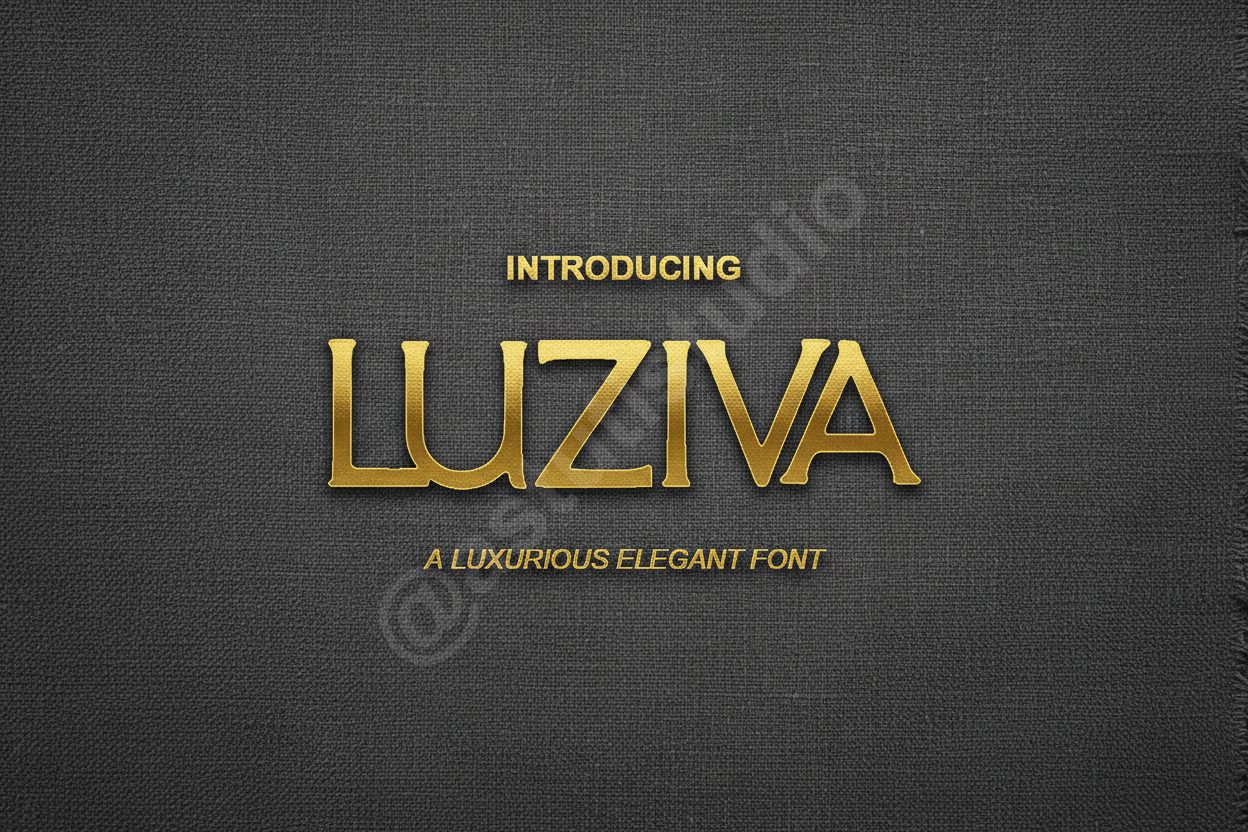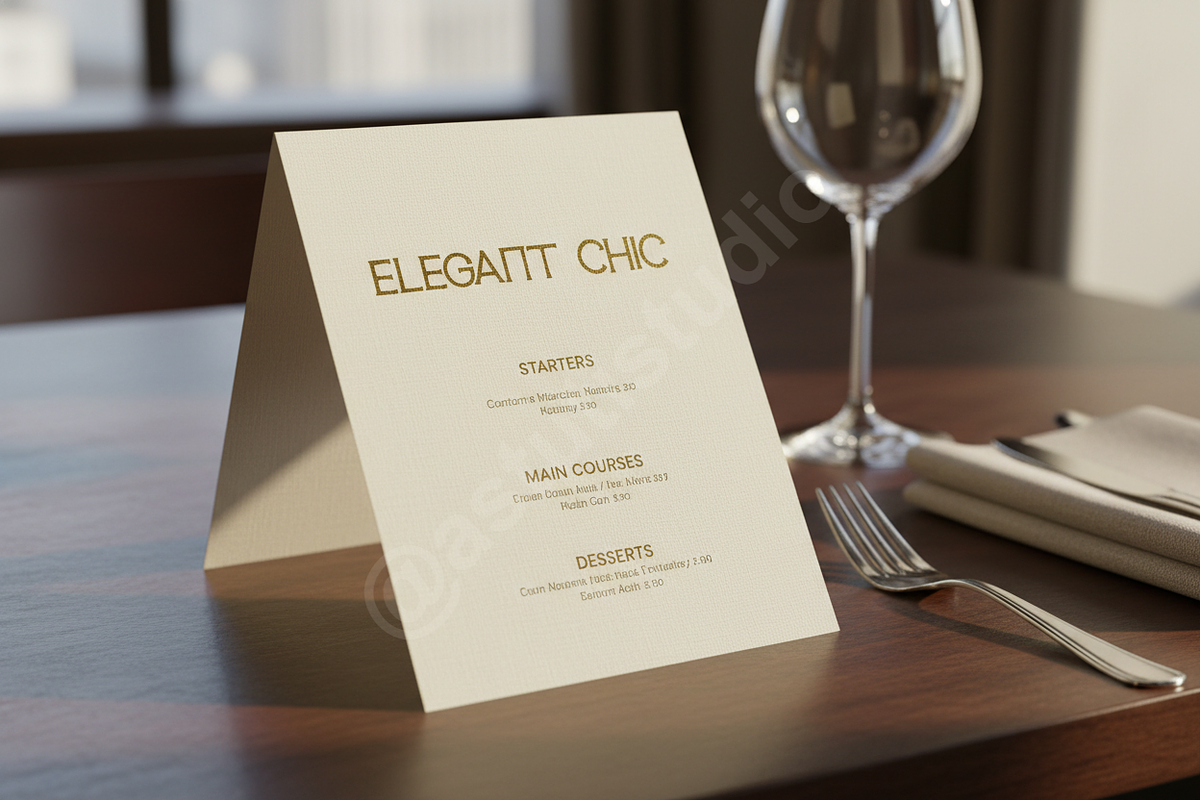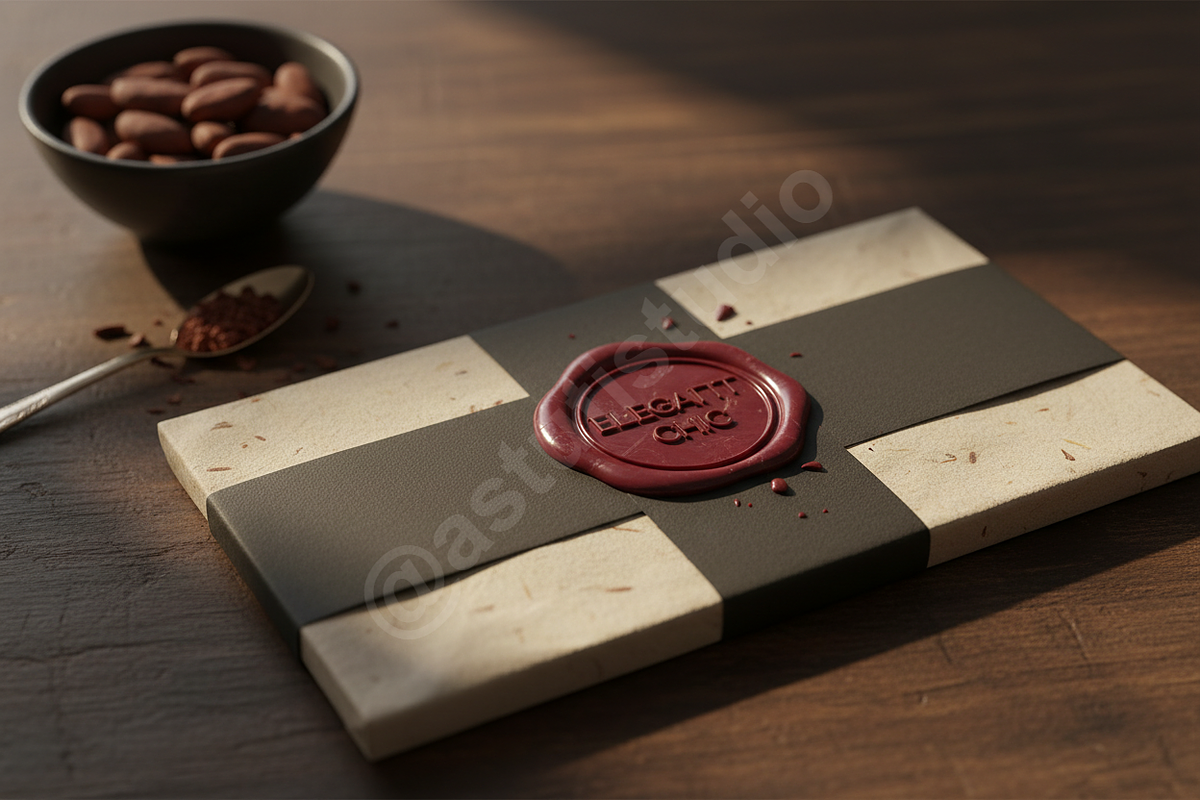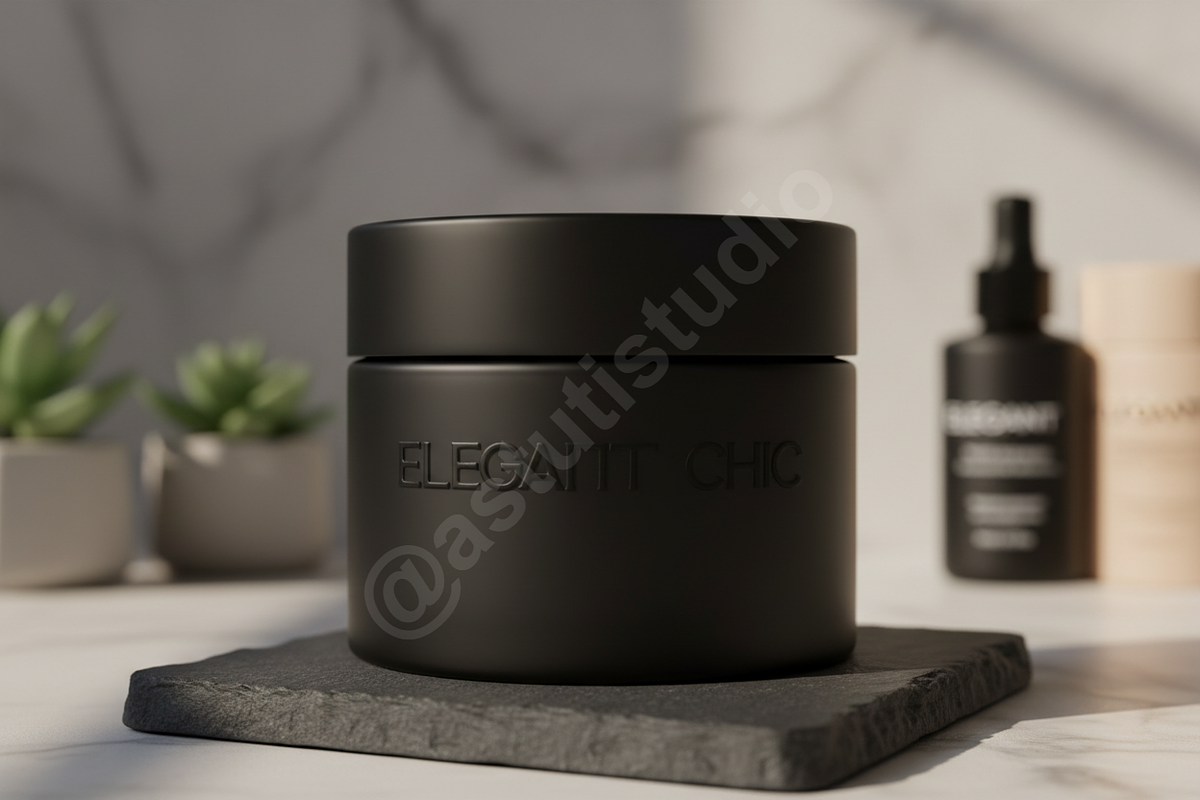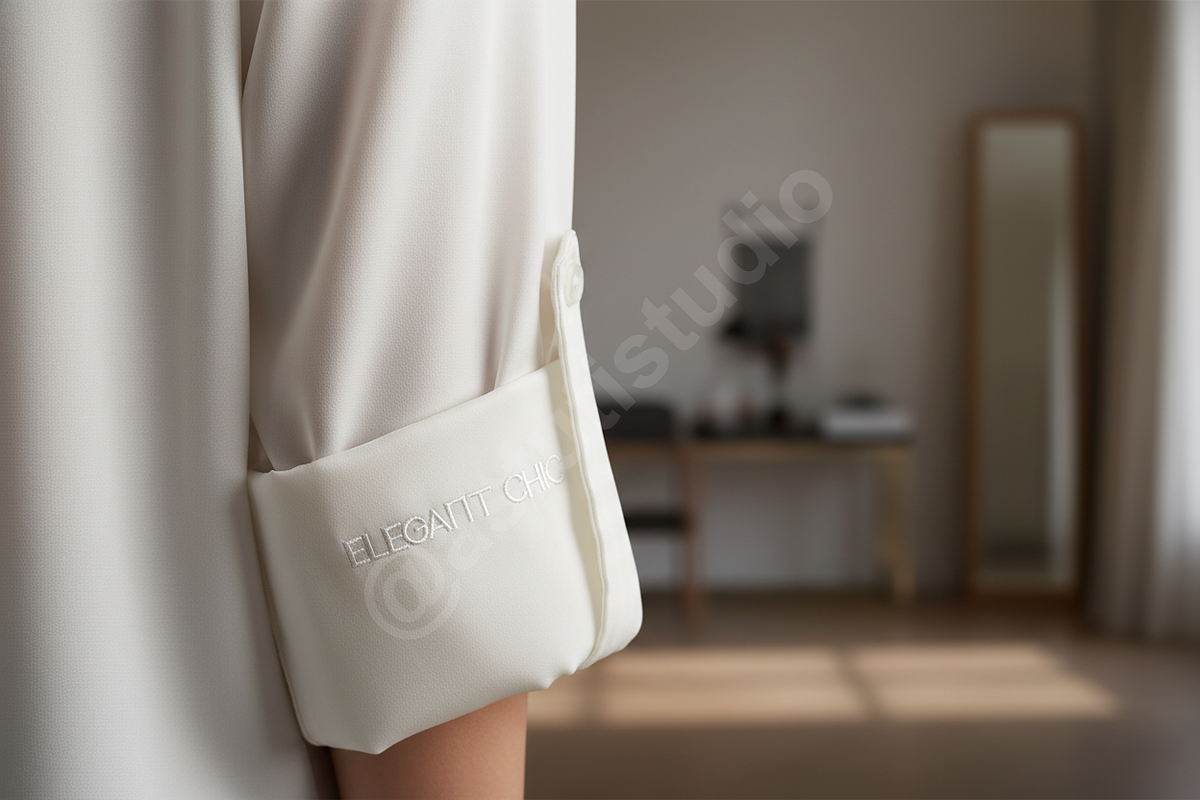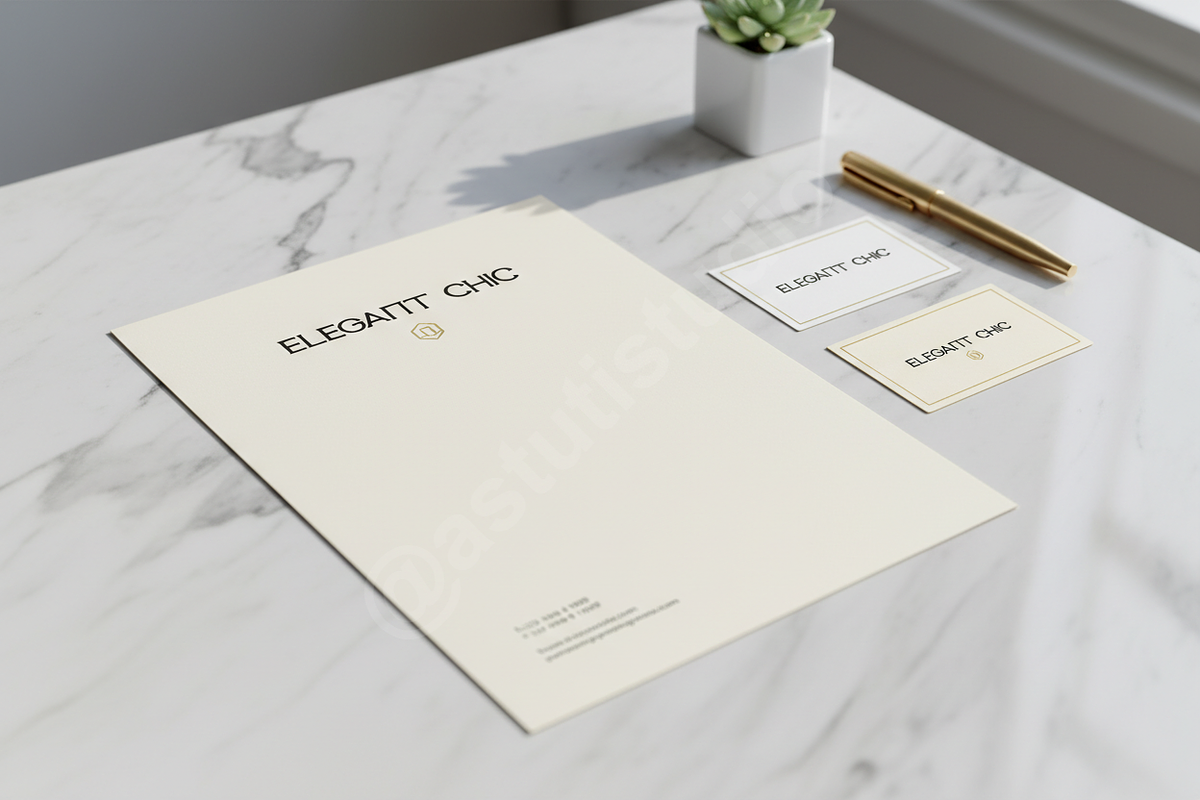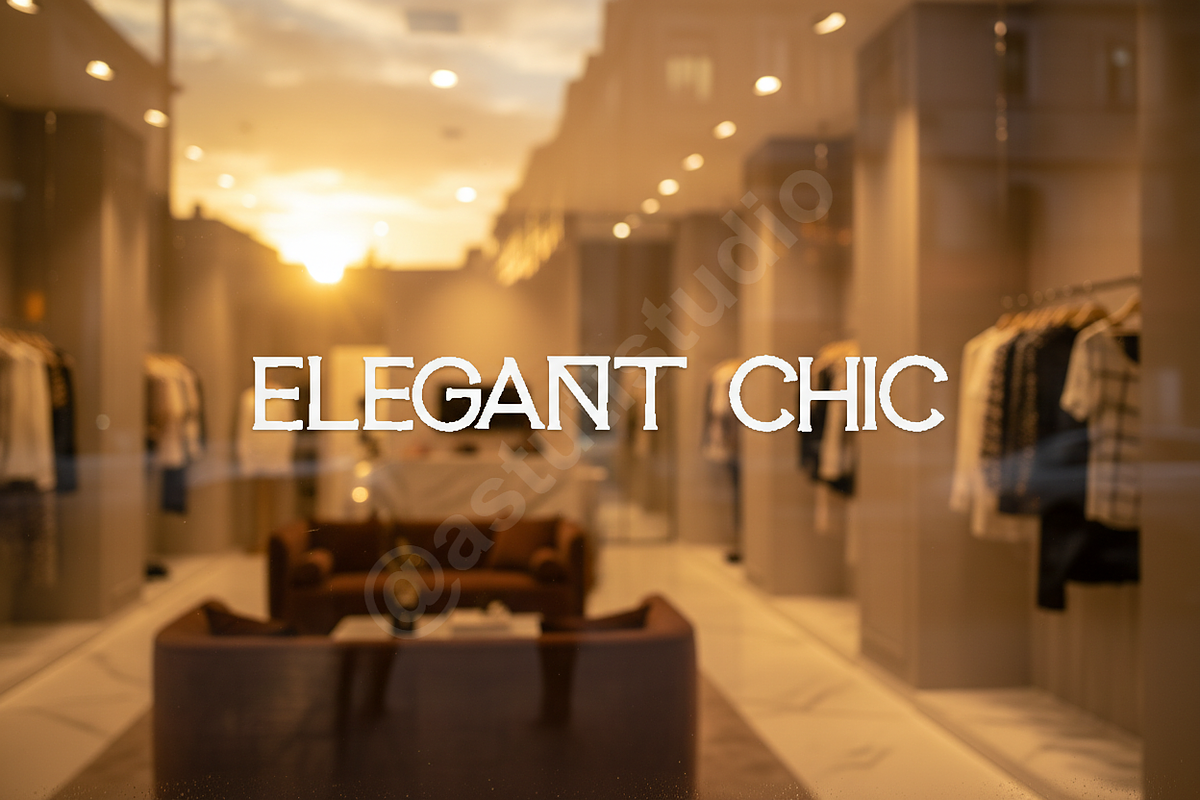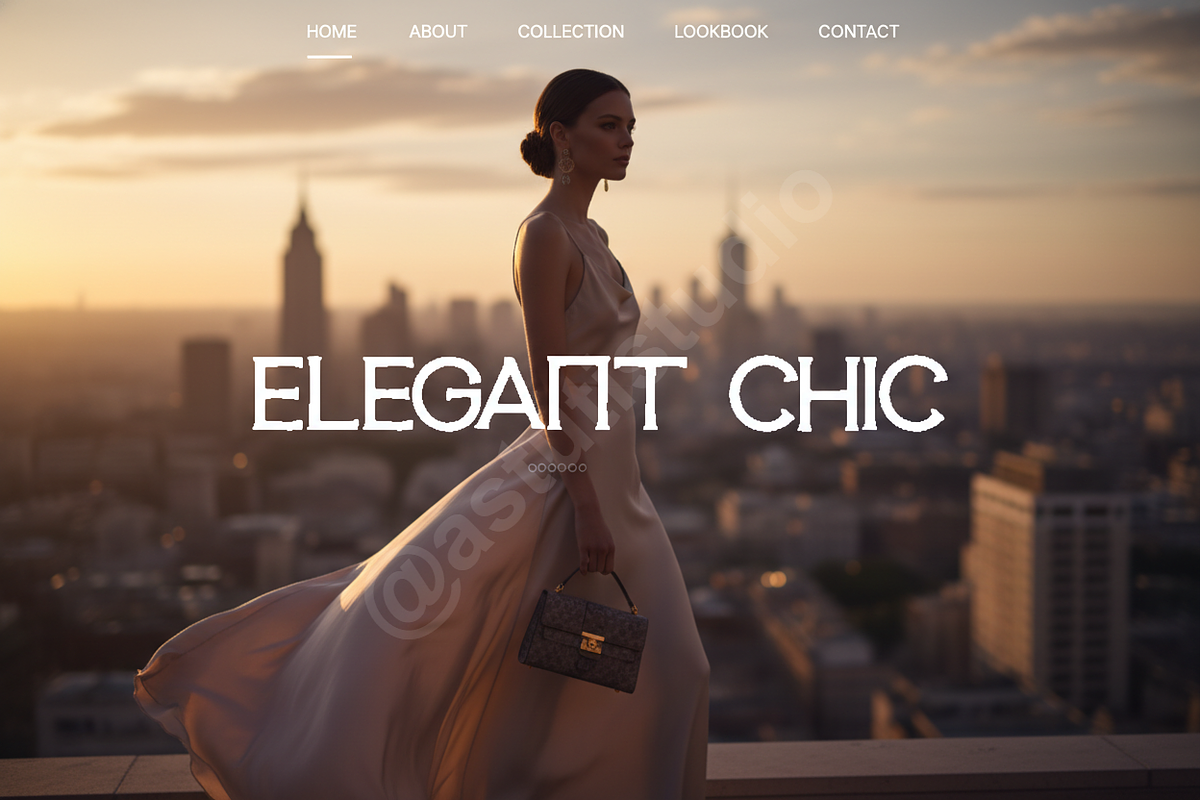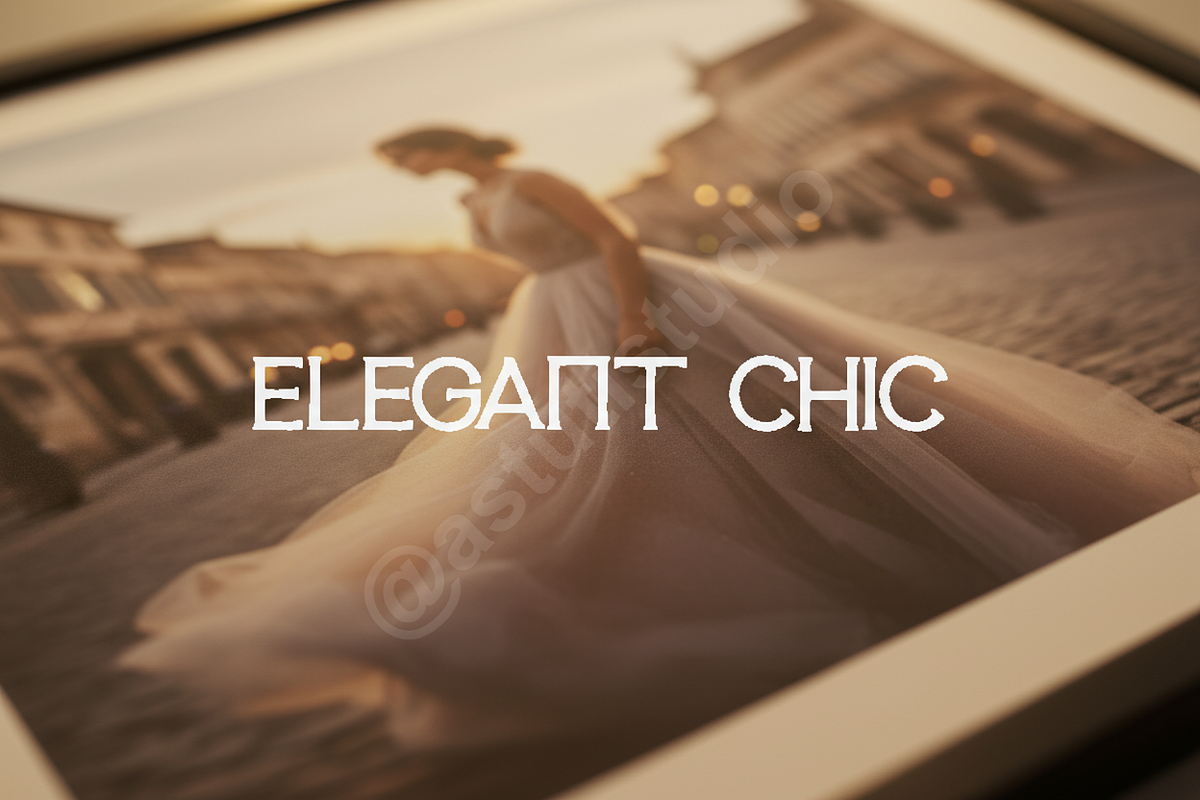
Luziva | Elegant Serif Typeface
LUZIVA - ELEGANT SERIF TYPEFACE
Introducing Luziva, a sophisticated serif font meticulously crafted for high-end projects. Drawing inspiration from modern editorial aesthetics and classic typography, Luziva offers a perfect balance of sharp contrast and soft curves, making it an essential tool for designers seeking a touch of luxury.
- Elegant and Timeless Design
- Sophisticated Ligatures and Alternates
- Extensive Multilingual Support
- High Contrast and Refined Details
- Optimized for both Print and Digital Media
IDEAL FOR Luziva is the ultimate choice for luxury branding, high-fashion editorial layouts, minimalist logo designs, and premium social media content. Its refined silhouette ensures clarity and style across magazines, wedding invitations, and boutique packaging.